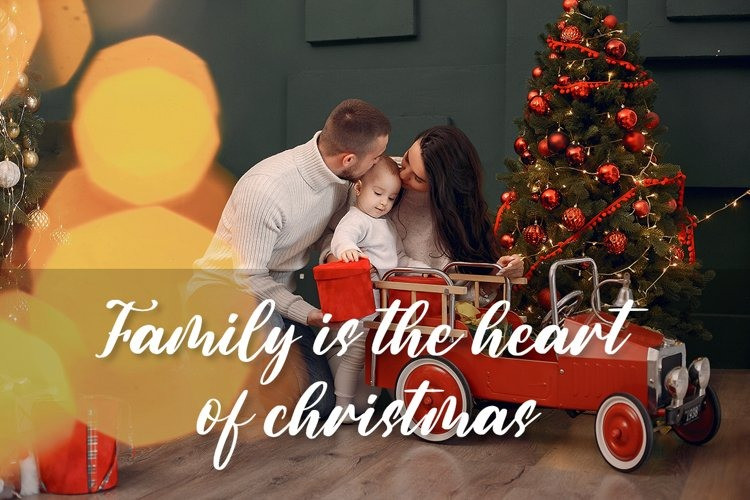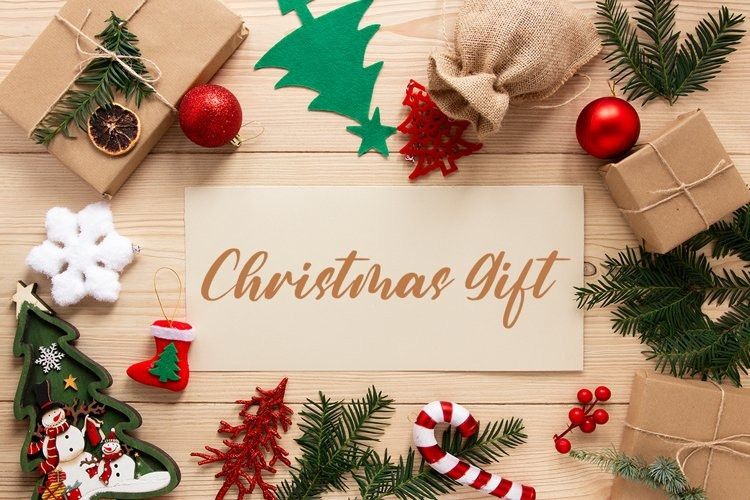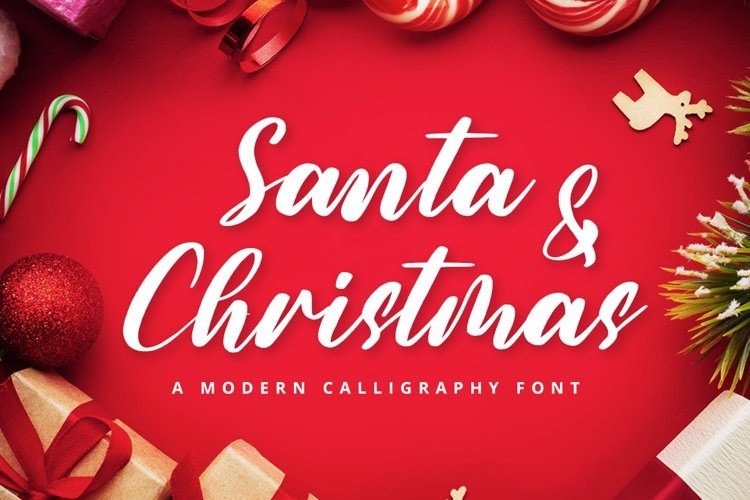
Santa & Christmas Calligraphy Font
Santa & Christmas is a beautiful, rich, and elegant handwritten font. It is ideal for holiday-themed greeting cards and for any crafting project that requires a warm touch. This font is PUA encoded which means you can access all of the glyphs and swashes with ease!